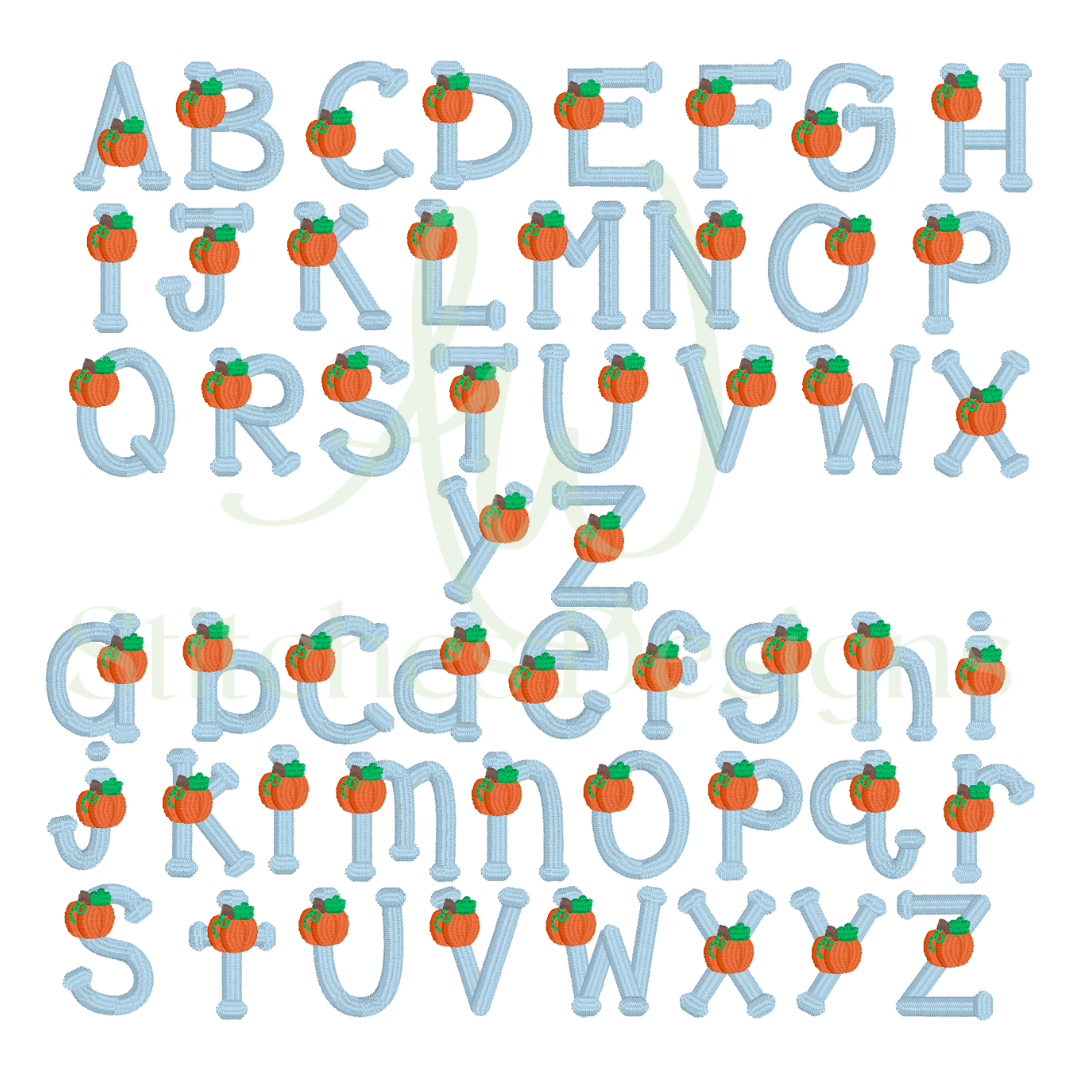
Pumpkin patch satin stitch font
Pumpkin Patch Fall Satin Stitch Font for Machine Embroidery
Looking for a versatile machine embroidery font to bring a cozy fall touch to your designs? The Pumpkin Patch Fall Satin Stitch Font is the perfect choice! This digital download includes 26 upper and lowercase letters in four sizes (1", 1.5", 2", and 2.5"), making it ideal for adding personalization to your projects. Designed for use with embroidery machines, this satin stitch font is compatible with all major formats like PES, EXP, DST, HUS, and more. Simply unzip the provided file and transfer it to your machine for immediate stitching!
-26 lower and upper case letters A through Z
This font comes in FOUR different sizes:
1 inch
1.5 inch
2 inch
2.5 inch